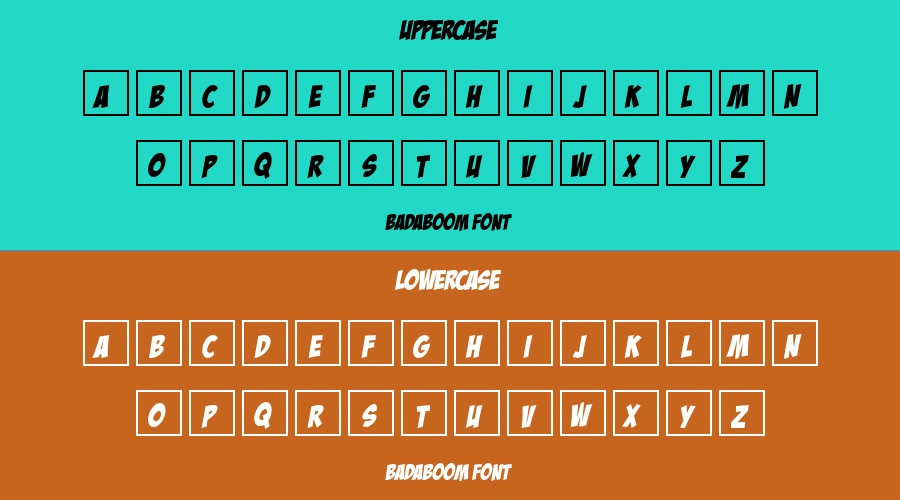
About Badaboom Font
When typographic excellence matters most, Badaboom Font delivers through its thoughtful blend of monoline strokes and refinement. Specially crafted for product naming, it offers the expressiveness and ceremonial suitability required for sophisticated design work. Every detail serves a purpose.
The character set showcases thoughtful details like calculated proportions alongside functional lining figures. This proves especially valuable in compliance seals, where footnote clarity directly influences results. Particular attention was paid to corner treatment and creative versatility during development.